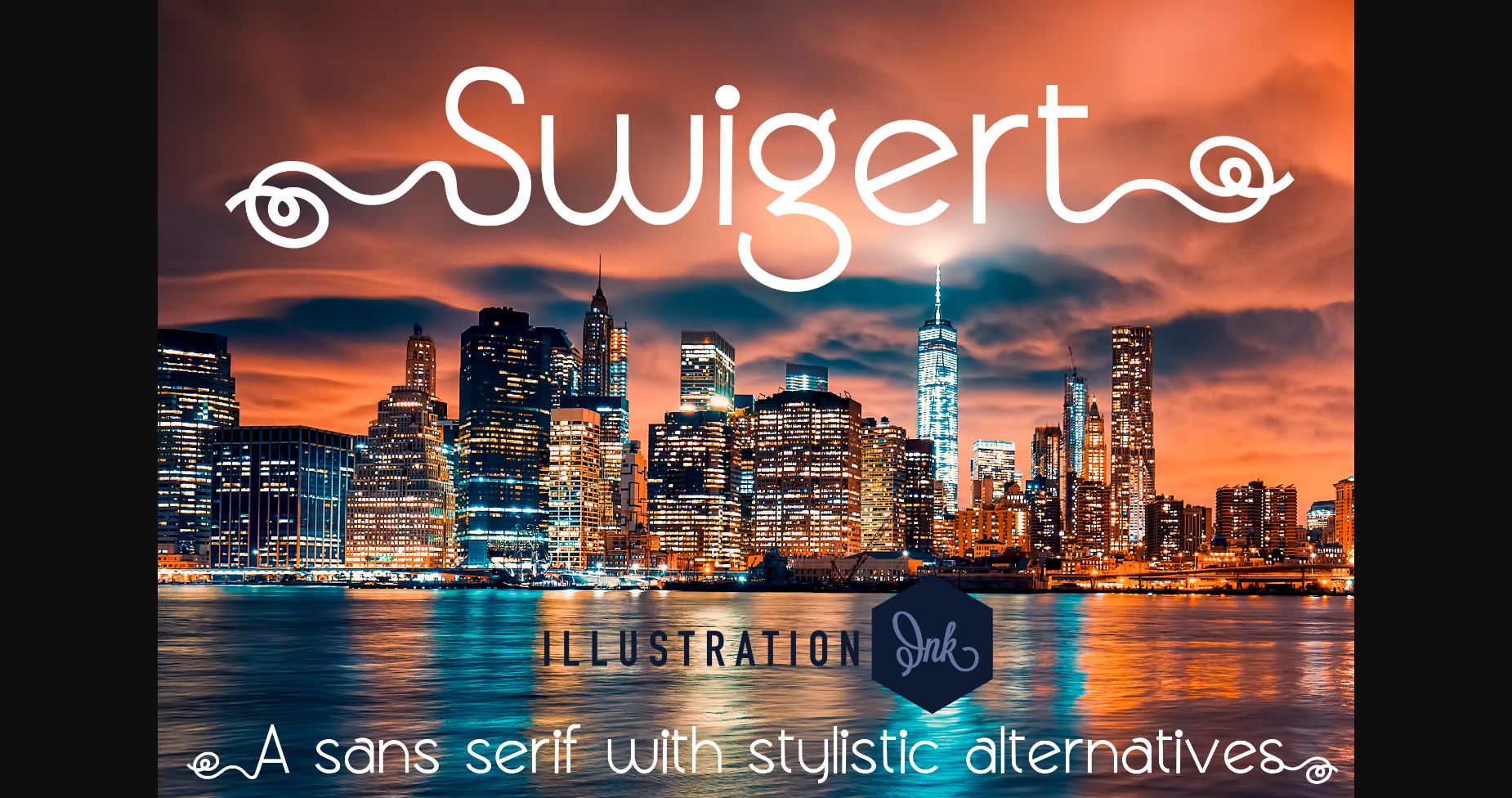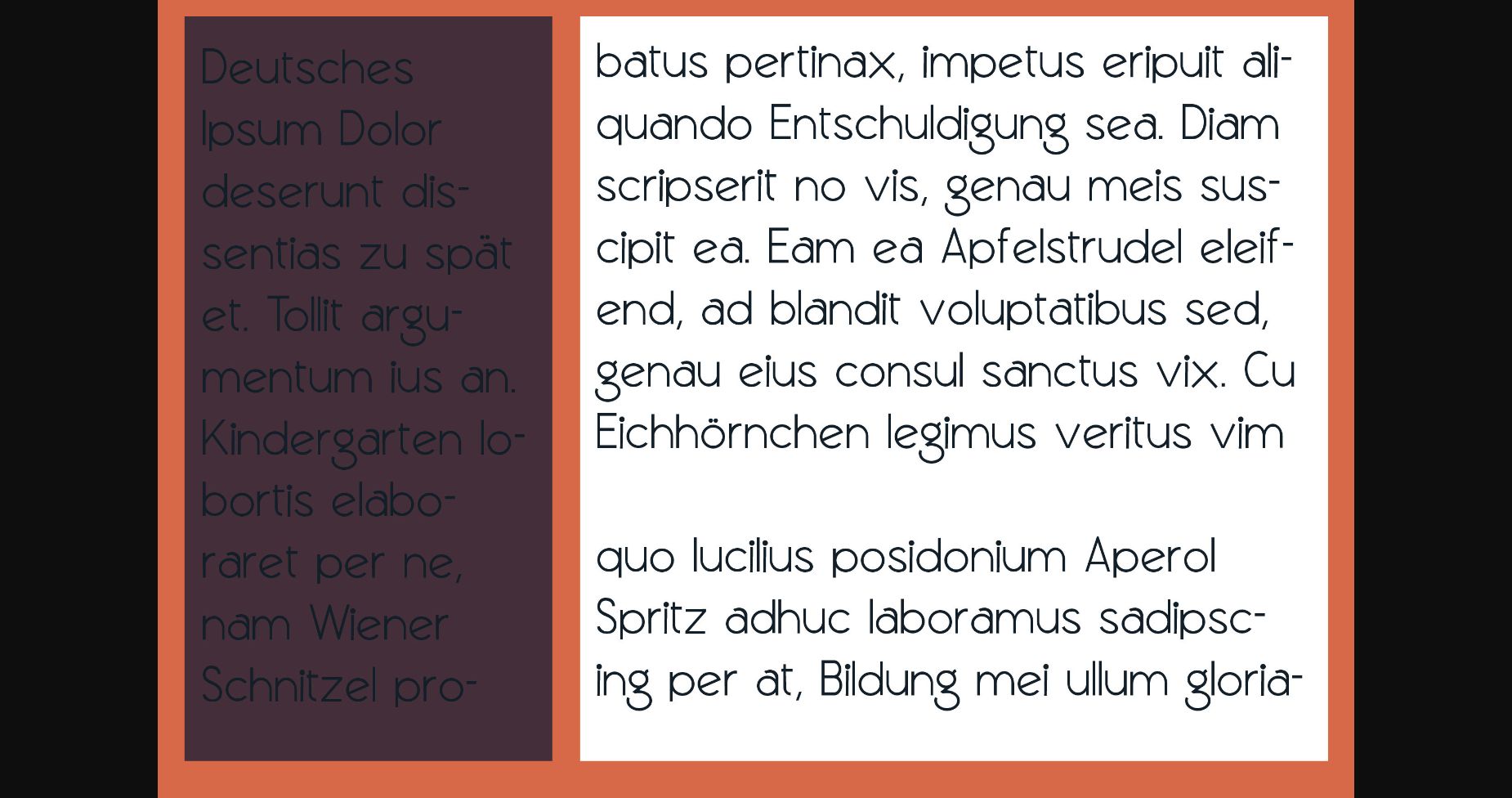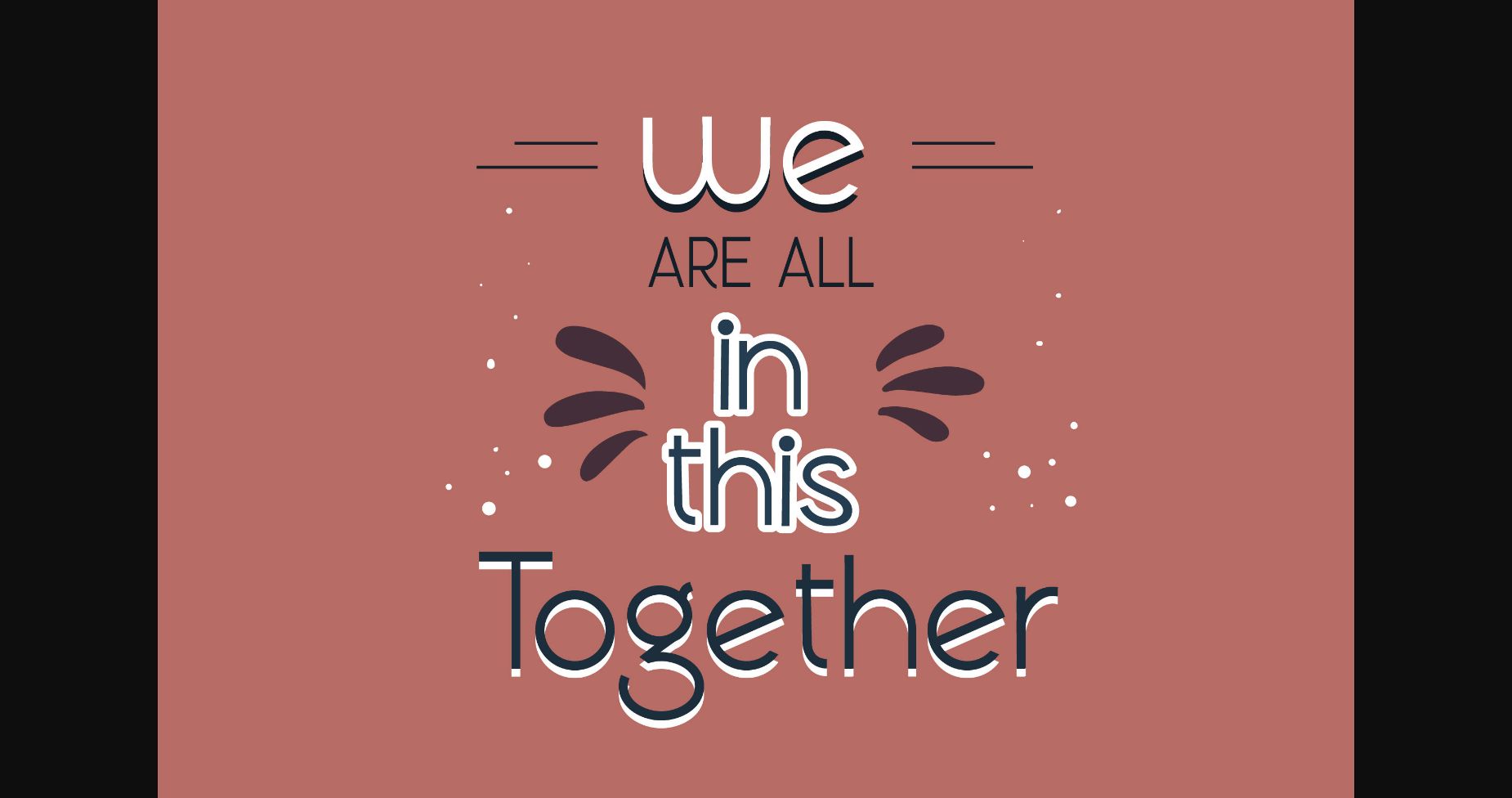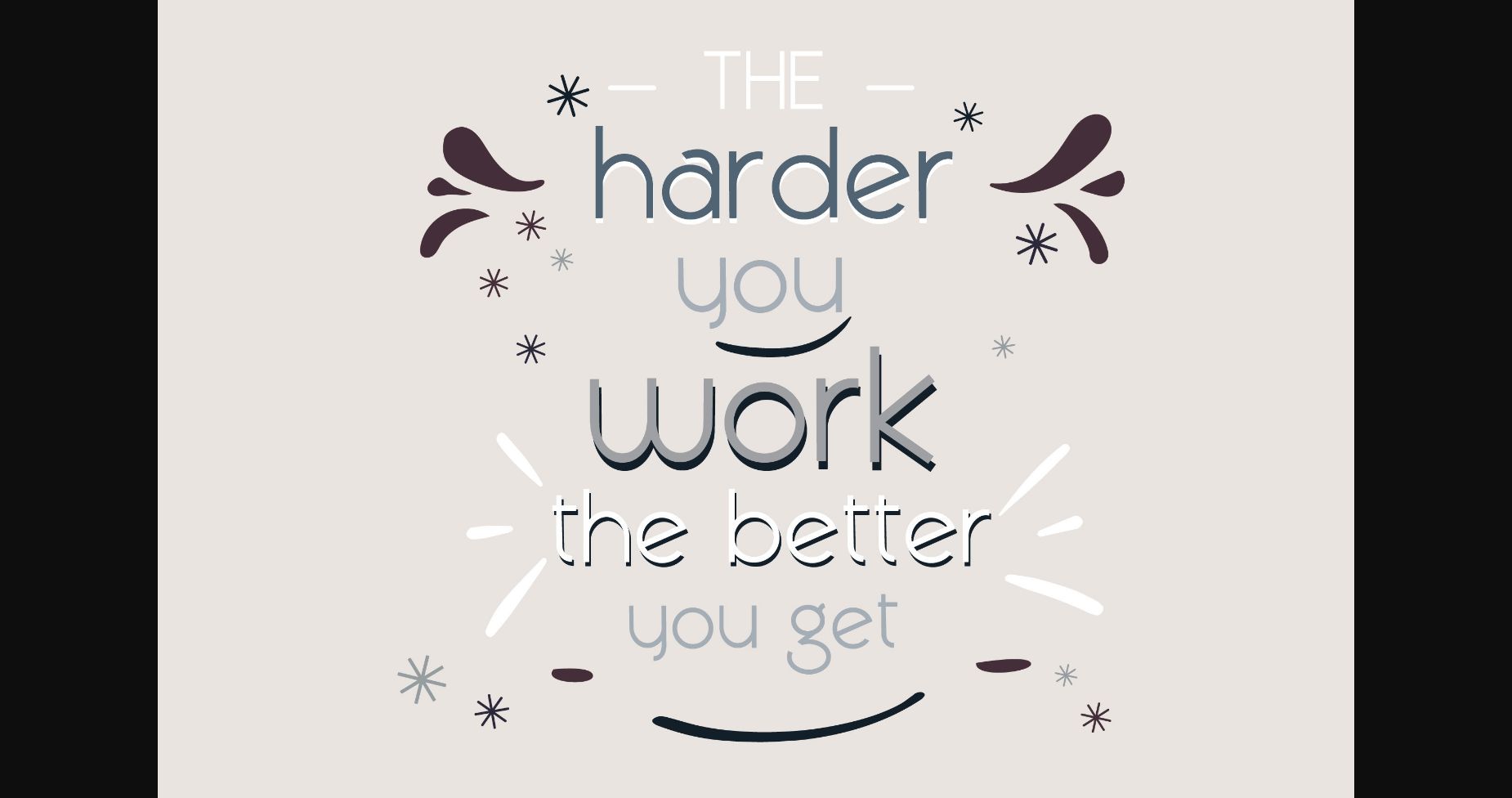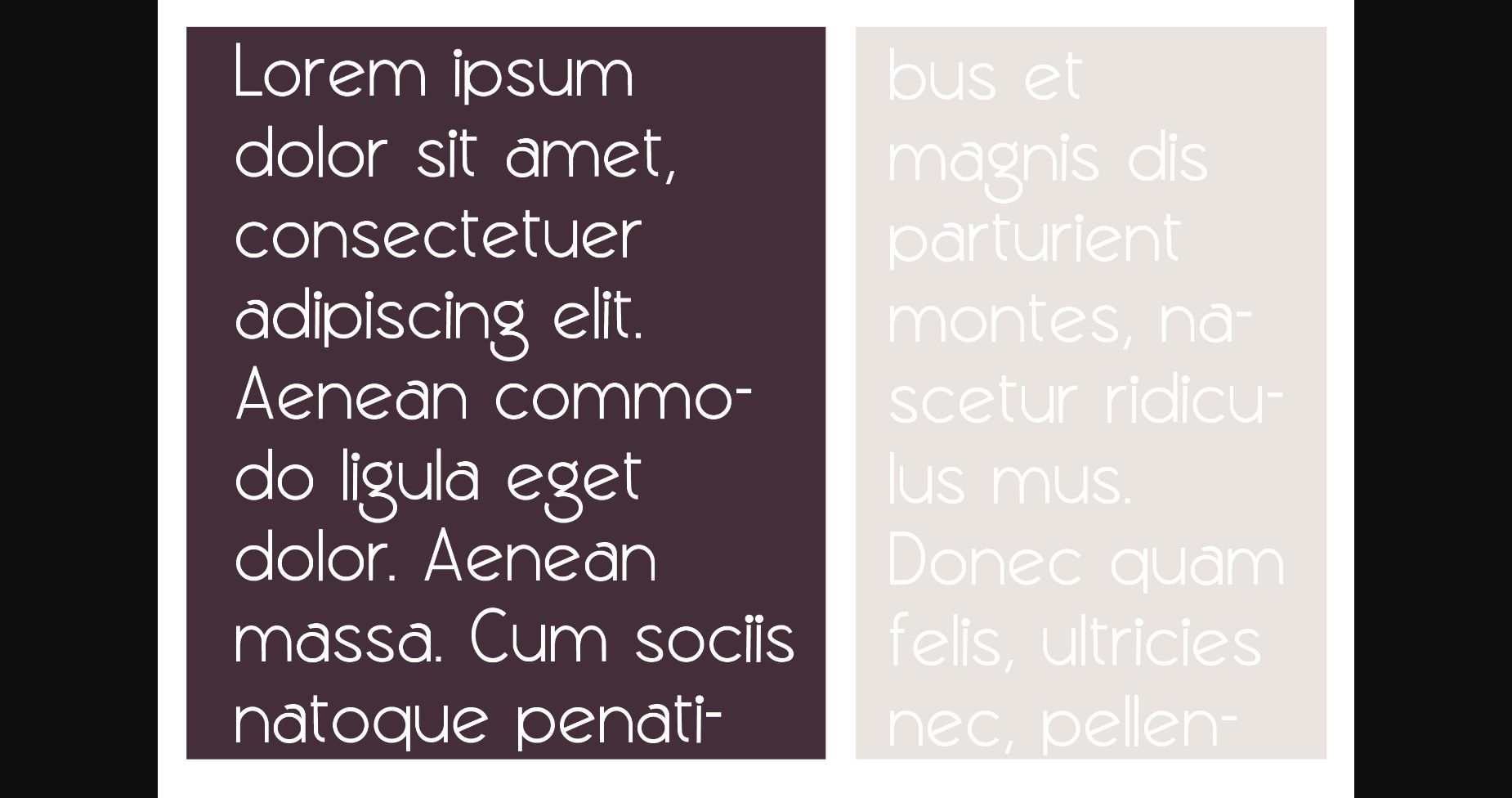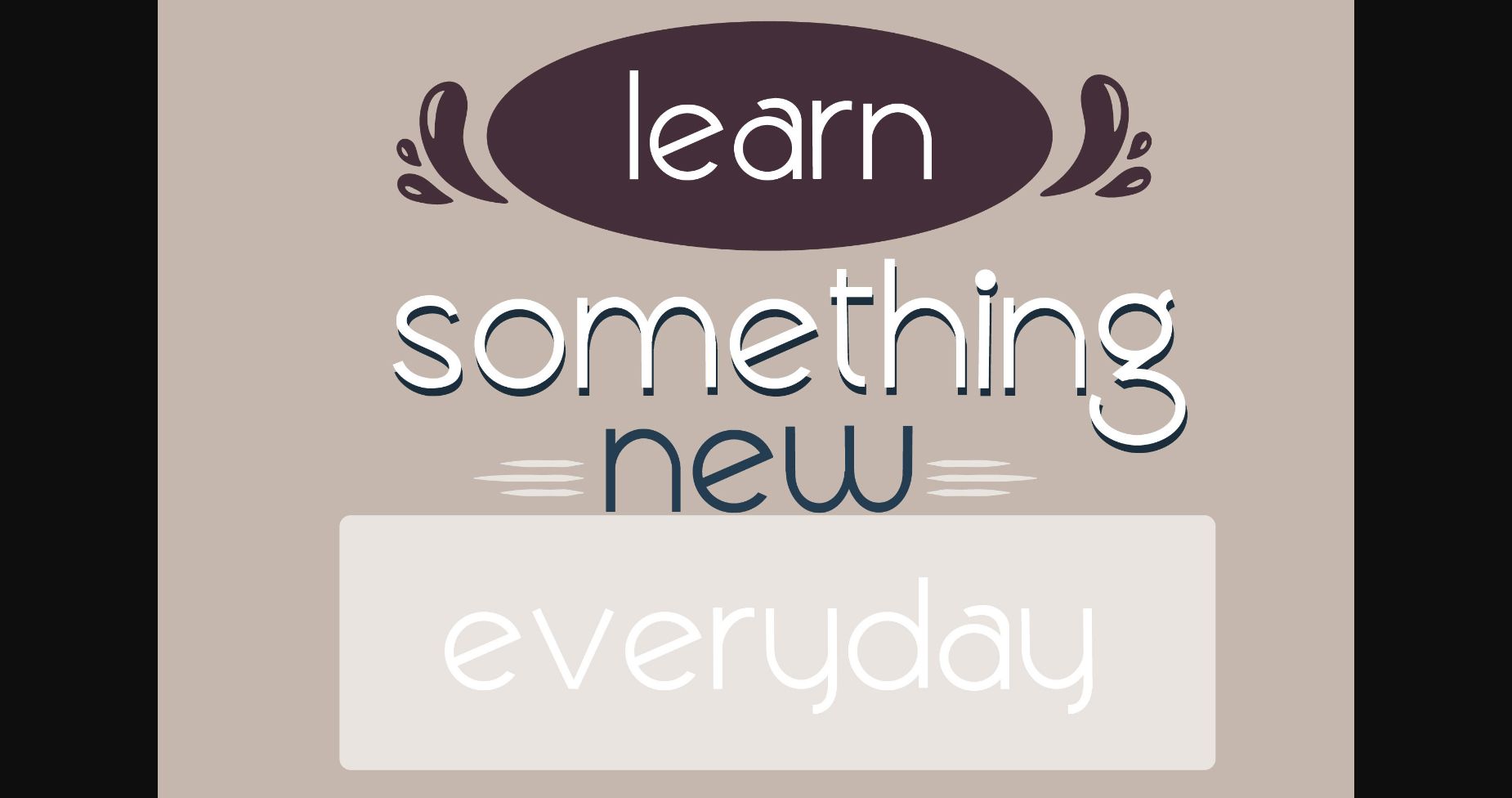
This hand-crafted sans serif font has an alt case available with flourished stylistic alternatives. Fall in love with Swigert and bring your projects to the highest levels!